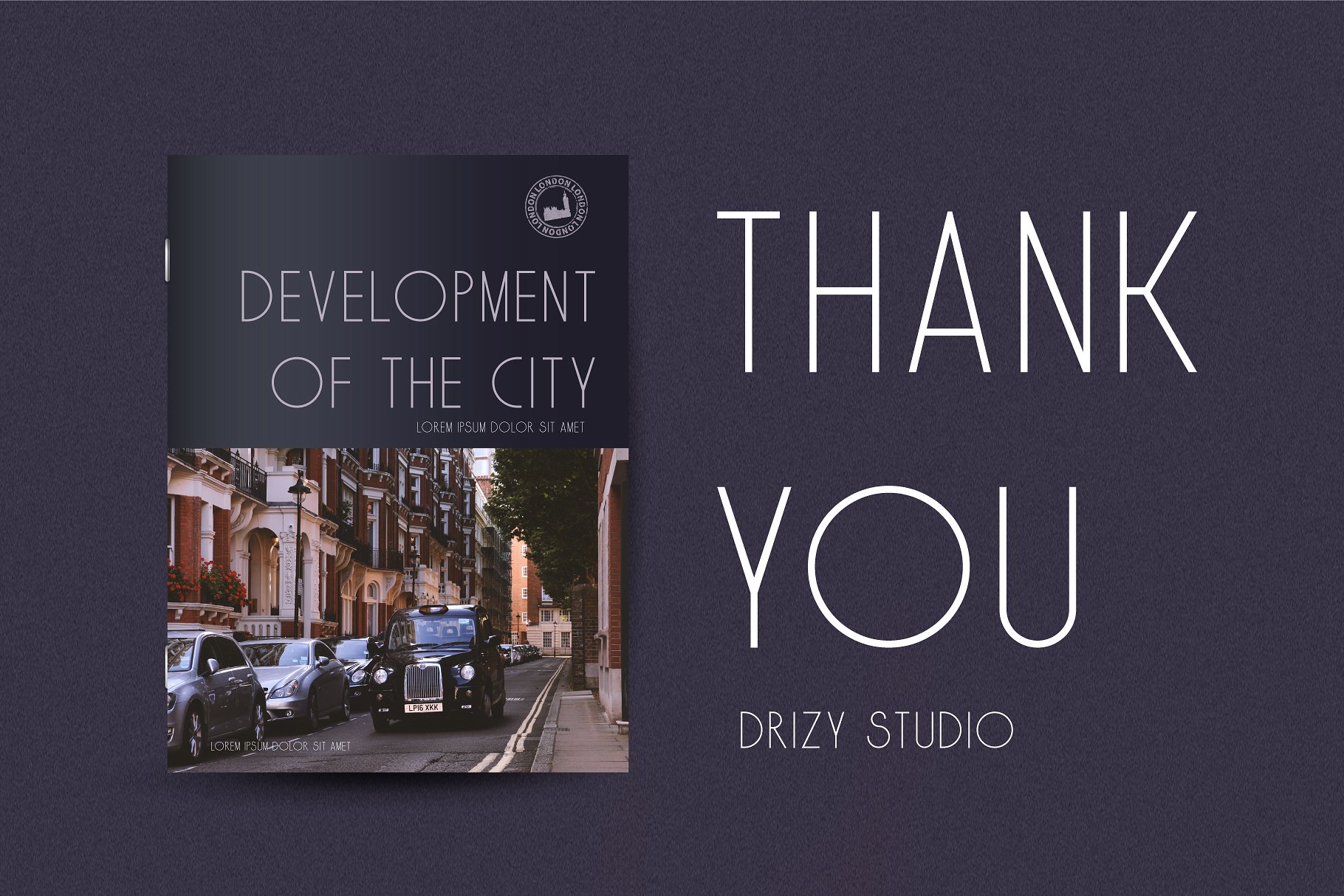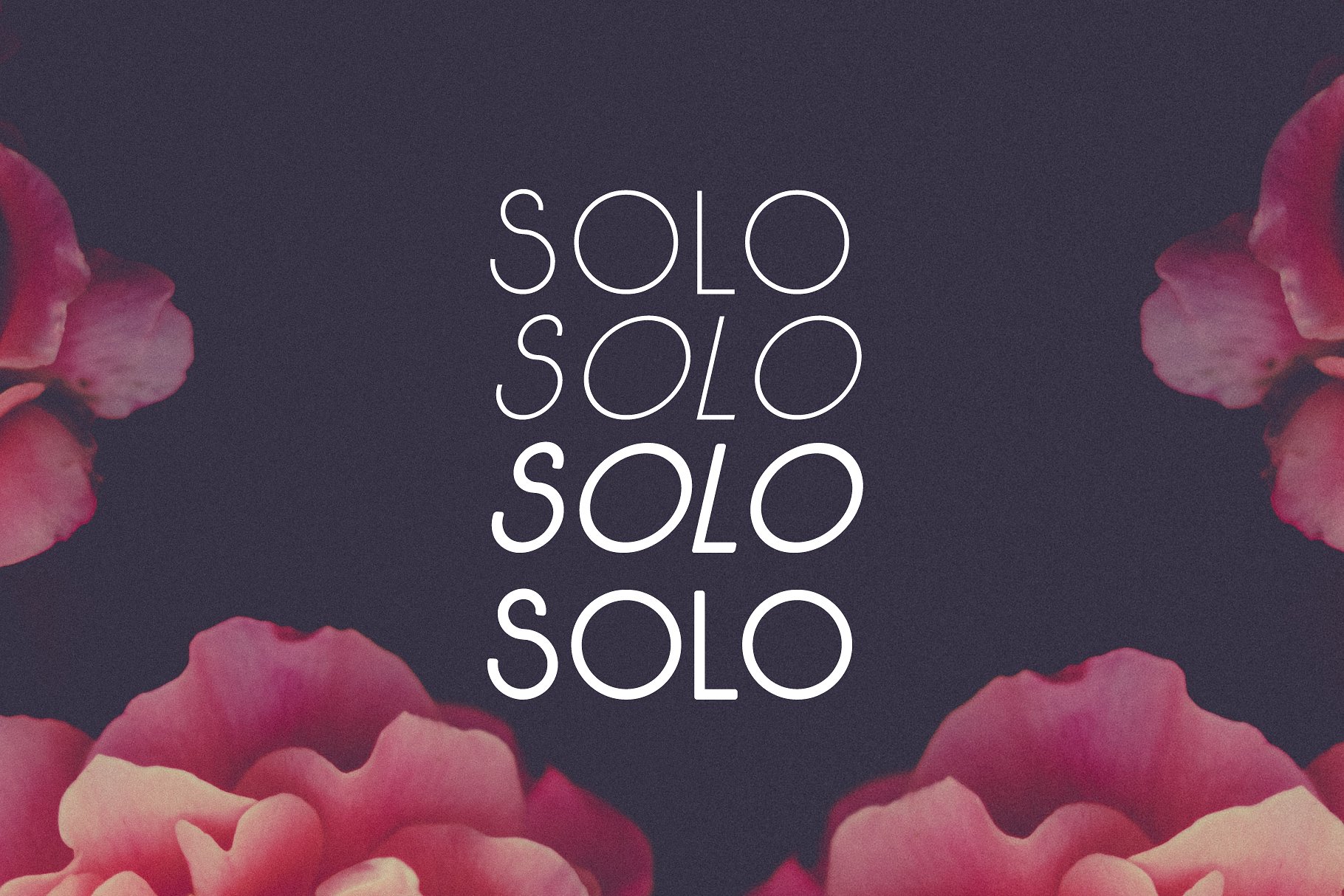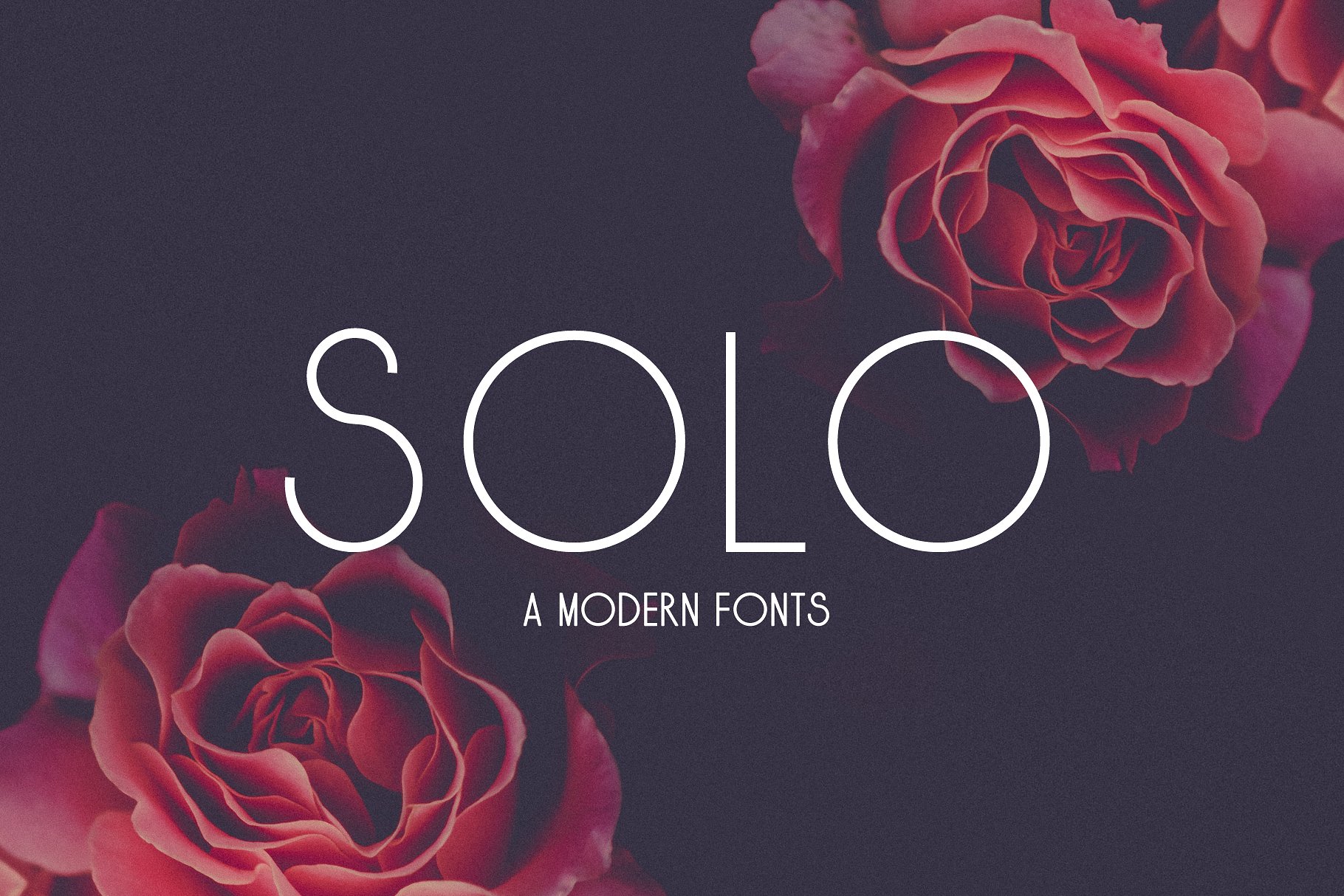
Solo Typeface
Hello!! I am very happy to introduce you to this new font, a modern font and future shape. Introducing Solo Font. SOLO – a new sans serif font with 6 fonts in 1 family, inspired from modern minimalist sign and solitude. SOLO is a simple, modern and clean. With letter, numbers, multi language and punctuation. This font makes way for the creativity of each and every one. Solo is great for creating eye-catching headlines, logo, applicable for any type of graphic design web, print, motion graphics, perfect for poster/flyer, branding, packaging, pictograms, etc.